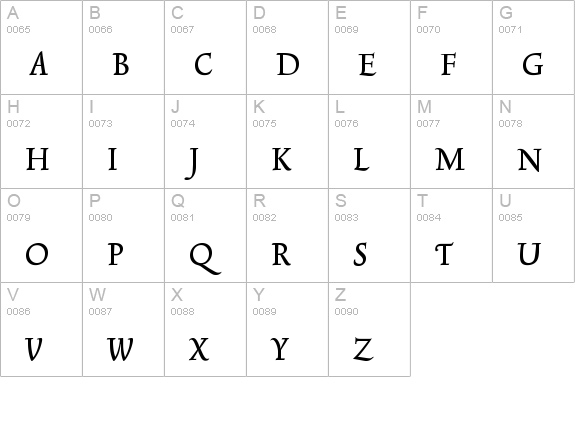
TriniteNo2-MediumItalicTab font is a stunning typeface that combines elegance with modernity. Its medium weight adds a touch of sophistication, while the italic style brings a sense of dynamic movement to any design. The fluid curves and slanted angles create a harmonious balance that is visually pleasing and captivating. This font is perfect for a wide range of design projects, whether it be for branding, advertising, or editorial purposes. Its versatility allows it to adapt seamlessly to various contexts, providing a stylish and professional look every time. One of the best features of TriniteNo2-MediumItalicTab font is that it is free. Yes, you read that right! This exceptional typeface is freely available to download at FontsMarket.com. This means that you can enhance your designs without any financial burden, making it an ideal choice for both personal and commercial projects. With TriniteNo2-MediumItalicTab font, you can elevate your designs to new heights. Its unique and eye-catching aesthetic will capture attention and leave a lasting impression on your audience. Don't miss the opportunity to experience the beauty and versatility of this font - download it for free at FontsMarket.com today!